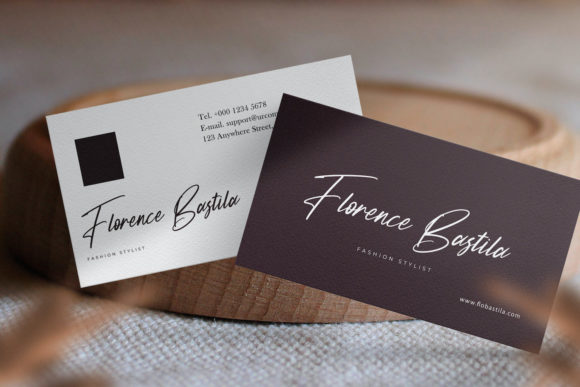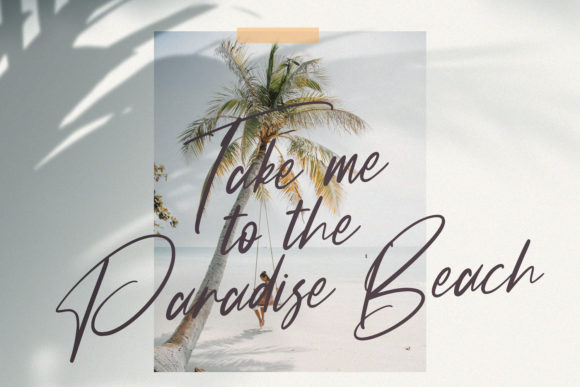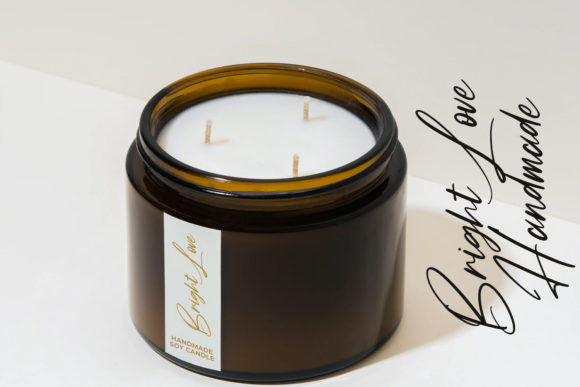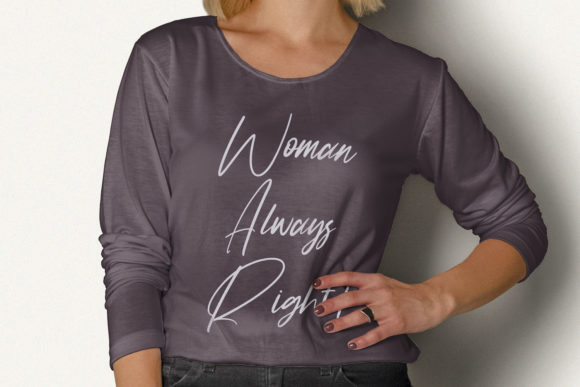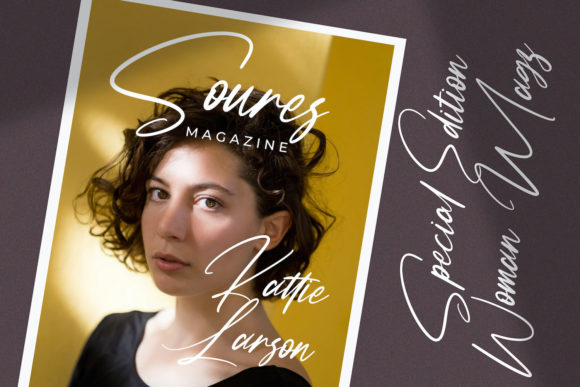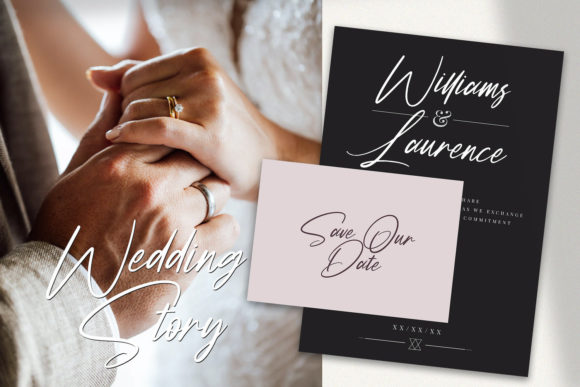
Fany Harlley Font: Elevate Your Designs with Elegance and Sophistication
In the world of typography, a font can make or break a design. For designers and crafters looking to add a touch of elegance and sophistication to their creations, Fany Harlley font is an excellent choice. This fashionable, cursive, and thin lettered script font is expertly designed to make your creation look out of this world. In this article, we’ll dive into the features and benefits of Fany Harlley font and explore how it can elevate your designs.
What is Fany Harlley Font?
Fany Harlley font is a beautifully crafted script font that exudes elegance and refinement. Its cursive and thin lettered design makes it perfect for a variety of design projects, from wedding invitations and branding materials to social media graphics and digital art. With its flowing lines and delicate curves, Fany Harlley font adds a touch of sophistication to any design.
Key Features of Fany Harlley Font
- Fashionable Design: Fany Harlley font boasts a modern and trendy design that’s sure to make your creations stand out.
- Cursive and Thin Lettered: The font’s cursive and thin lettered design makes it perfect for adding a touch of elegance to your designs.
- High-Quality: Fany Harlley font is expertly crafted with high-quality letters that ensure clarity and precision.
- Versatile: This font is suitable for a wide range of design projects, from digital art to print materials.
Benefits of Using Fany Harlley Font
- Adds Elegance and Sophistication: Fany Harlley font instantly elevates your designs with its elegant and sophisticated design.
- Enhances Readability: The font’s clear and precise letters ensure that your text is easy to read, even at small sizes.
- Increases Versatility: With Fany Harlley font, you can create a wide range of designs, from formal and professional to playful and creative.
- Perfect for Branding: This font is ideal for branding materials, such as logos, business cards, and letterheads, where a professional image is essential.
- Pair with Other Fonts: Combine Fany Harlley font with other fonts to create a unique and visually appealing design.
- Use for Headings and Titles: Fany Harlley font is perfect for headings and titles, where its elegant design can make a big impact.
Fany Harlley font is a beautiful and elegant script font that’s perfect for designers and crafters looking to add a touch of sophistication to their creations. With its fashionable design, cursive and thin lettered style, and high-quality letters, this font is sure to elevate your designs. Whether you’re working on a wedding invitation, branding materials, or digital art, Fany Harlley font is an excellent choice. So why not give it a try and see how it can transform your designs?